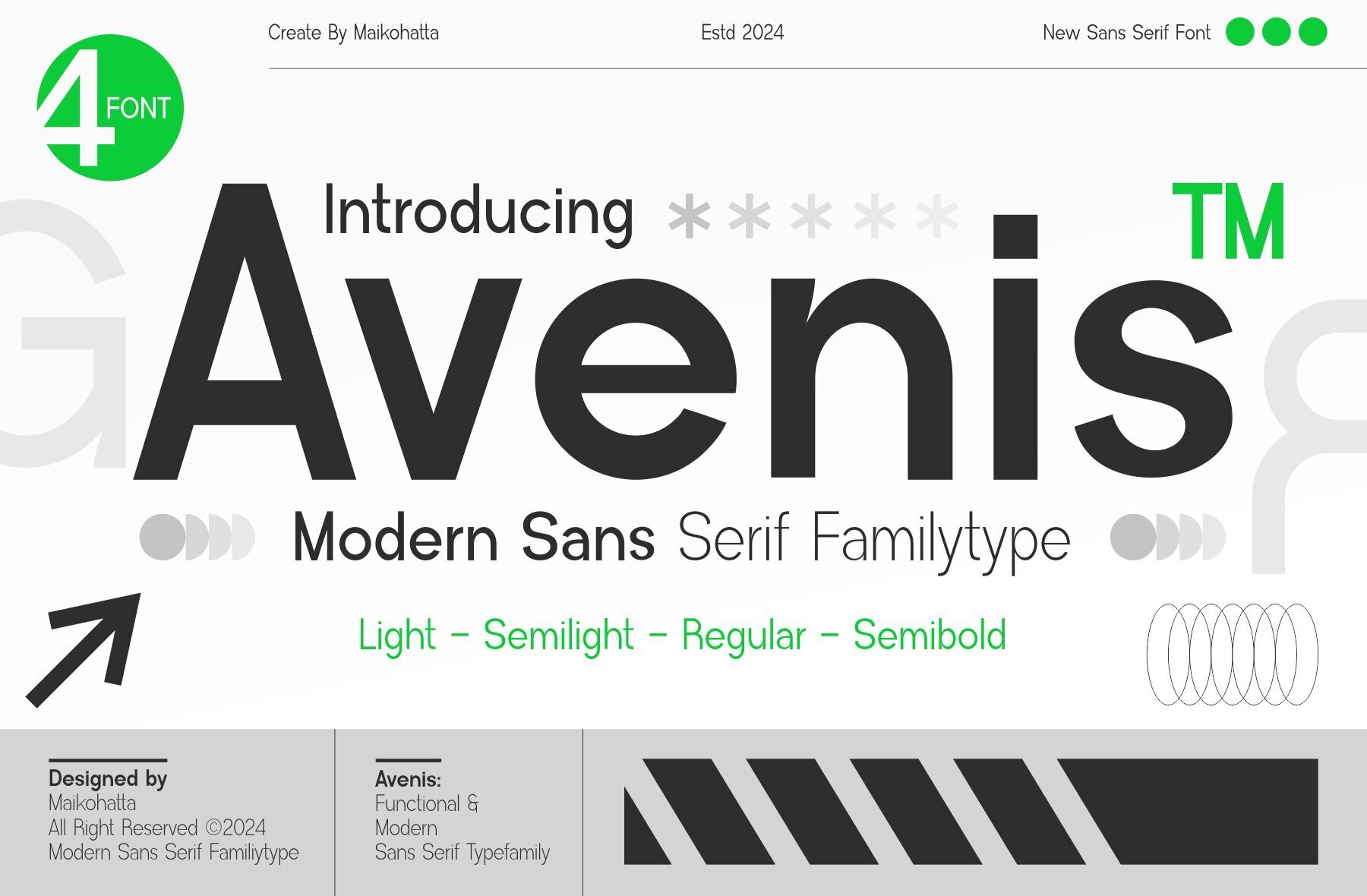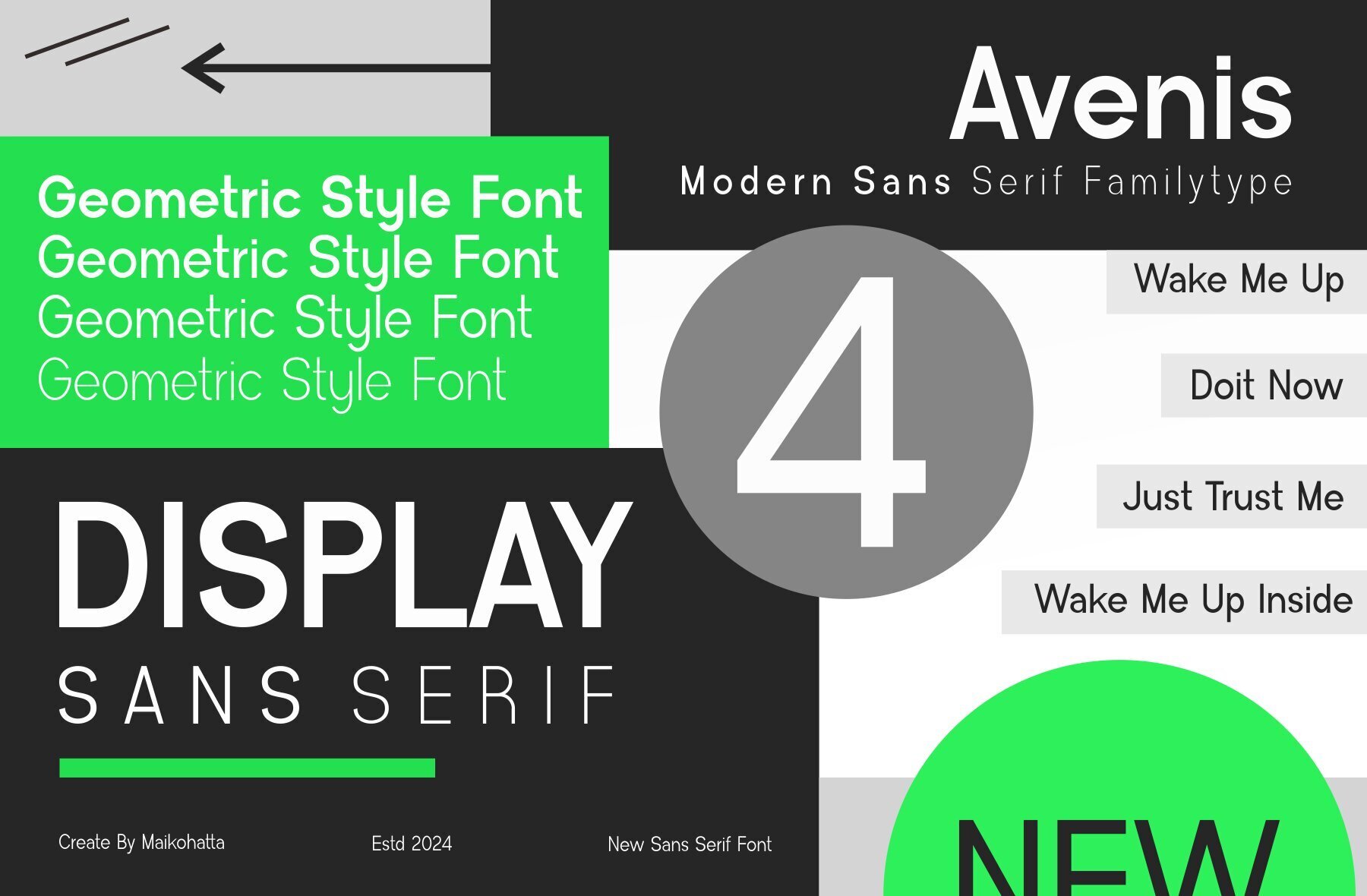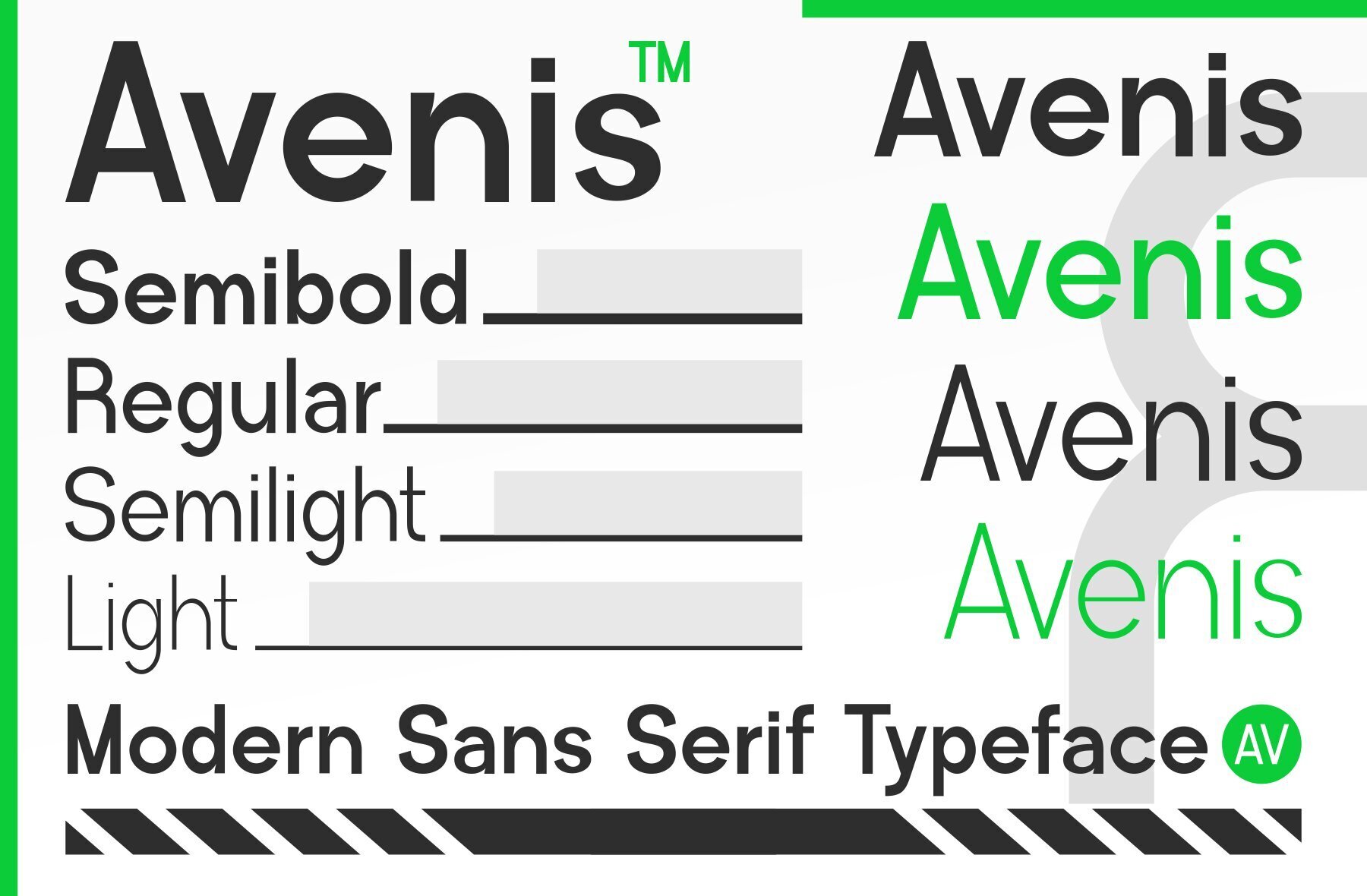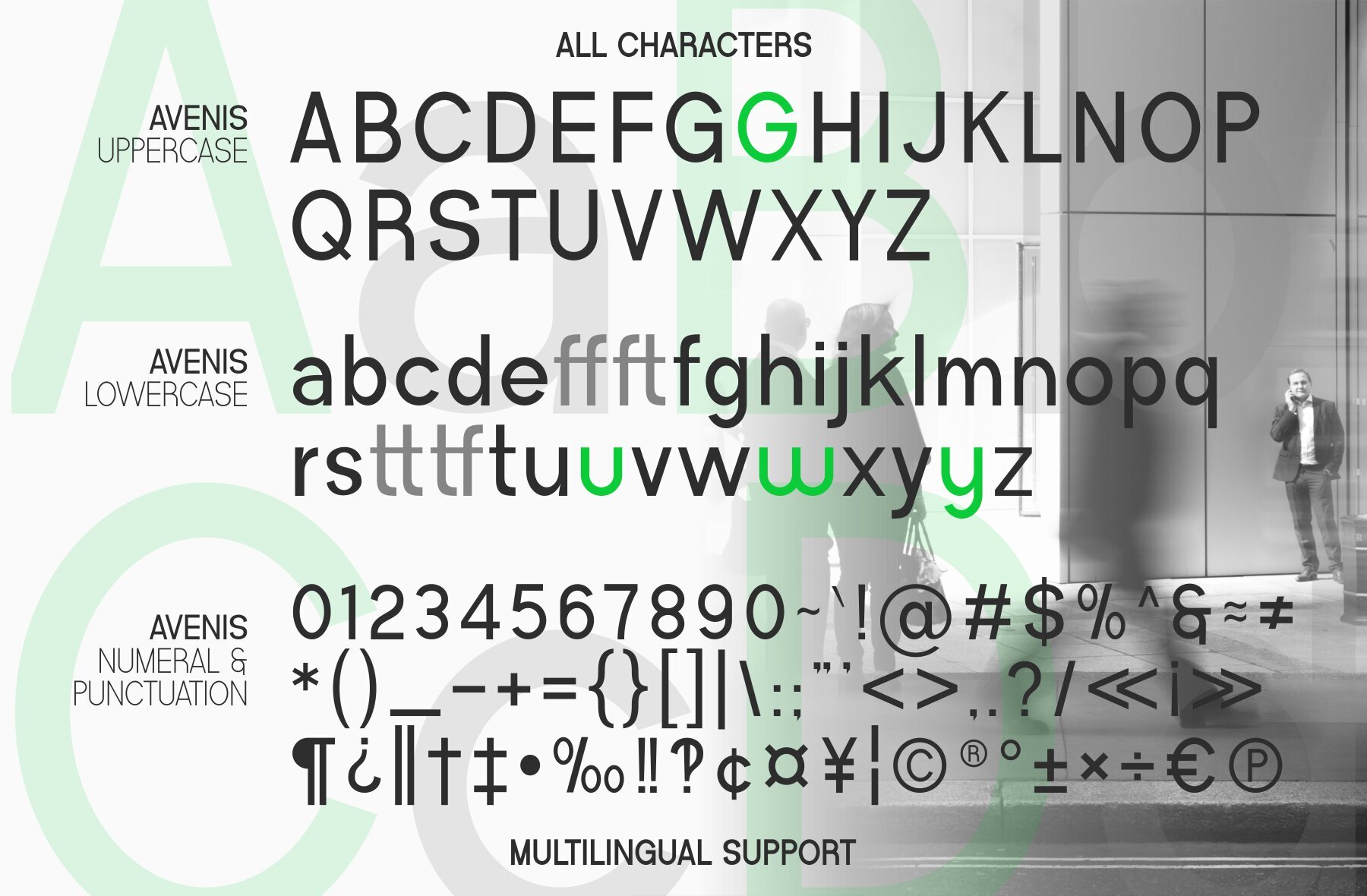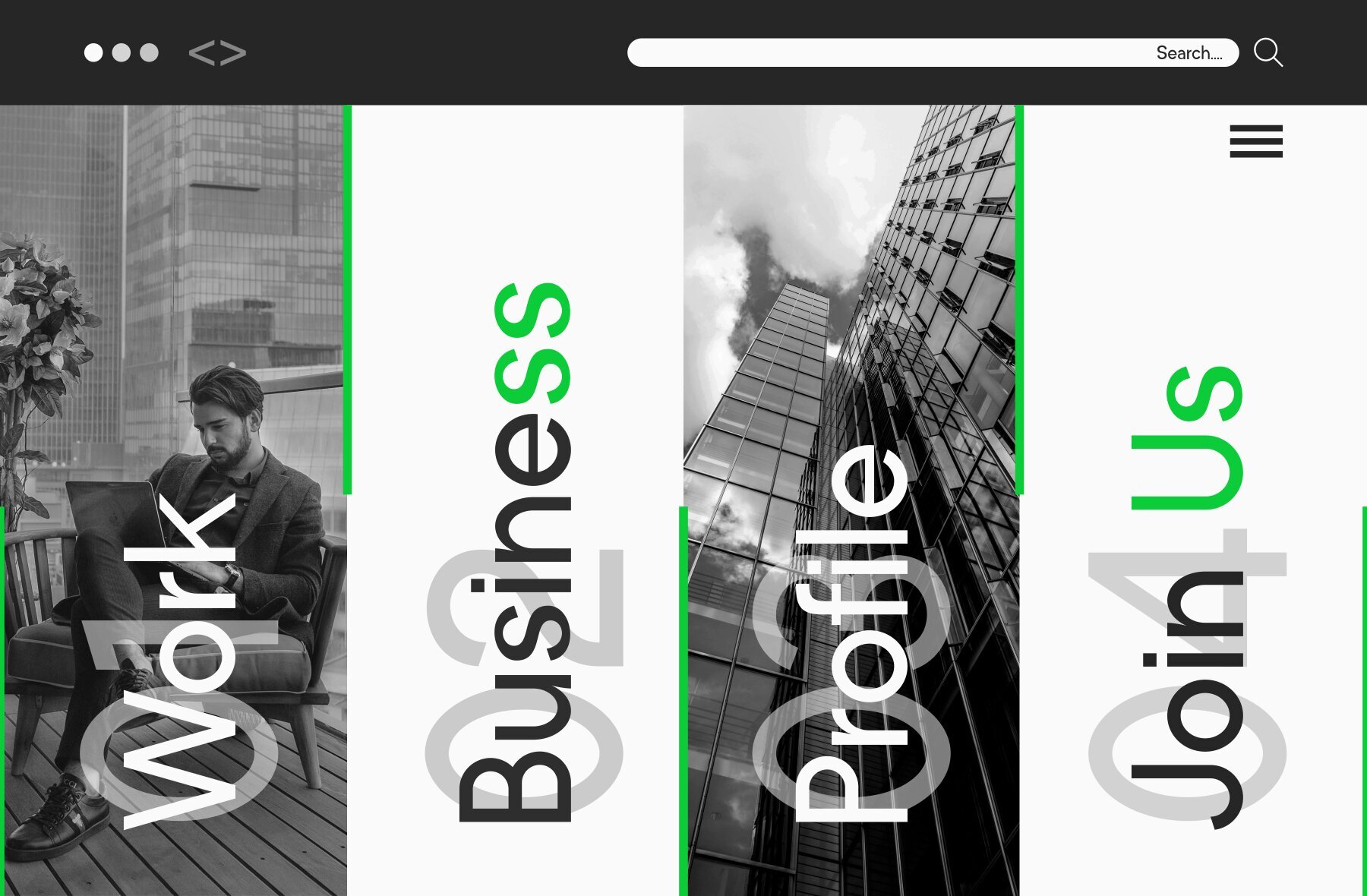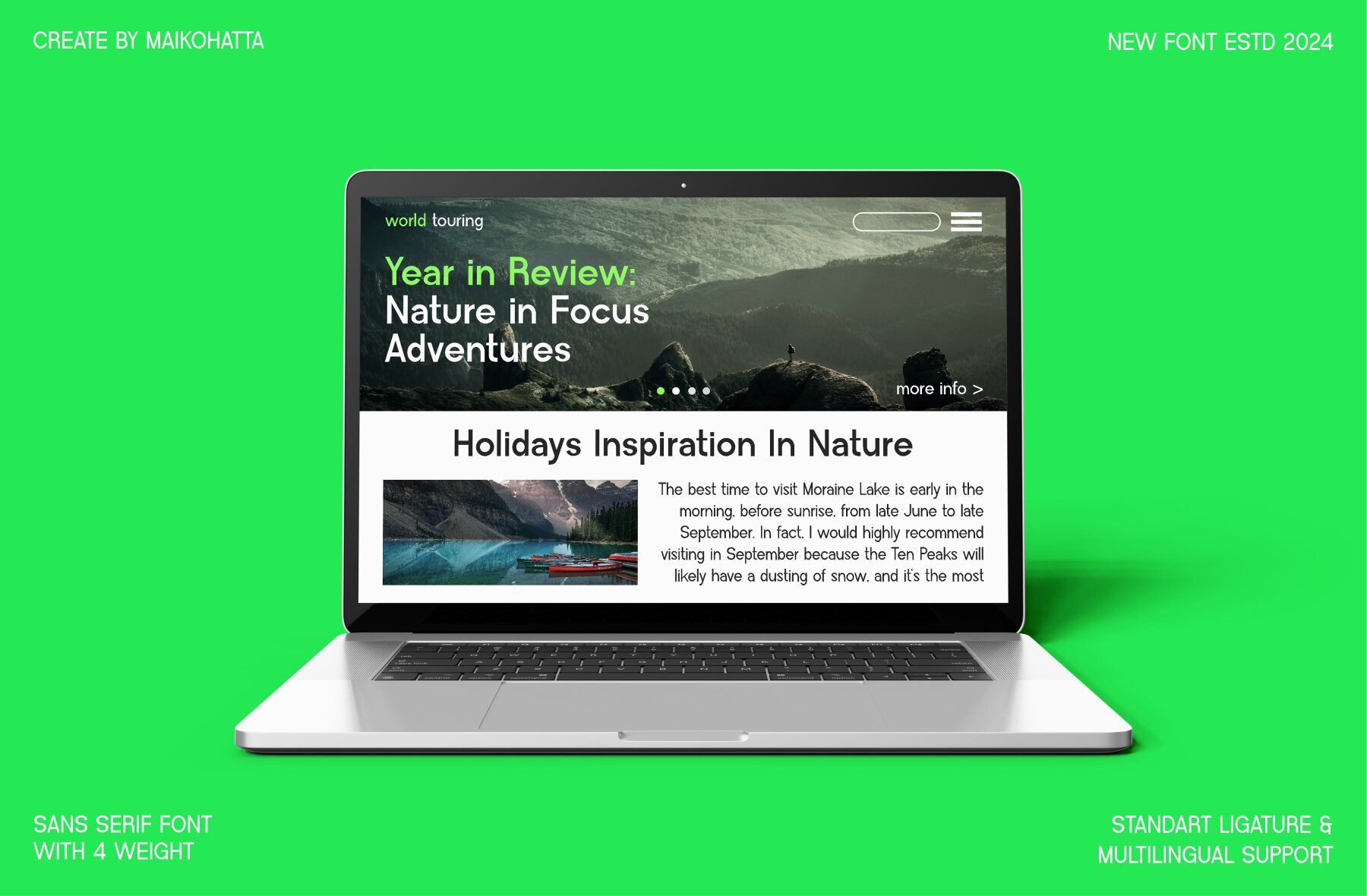
Avenis Font
Avenis offers a contemporary sans-serif font family perfect for creating clean and modern text displays. This versatile typeface is ideal for graphic design, providing flexibility to customize text appearance for any project.Avenis: Modern Sans Serif Typeface Family